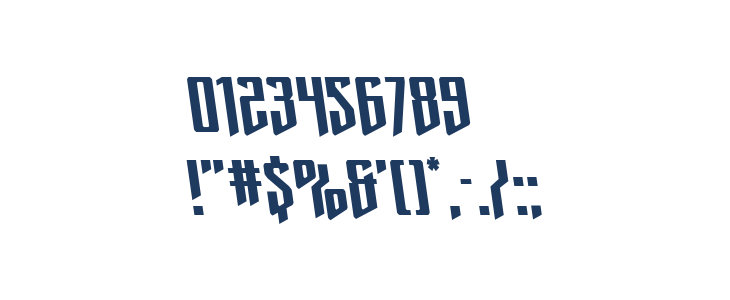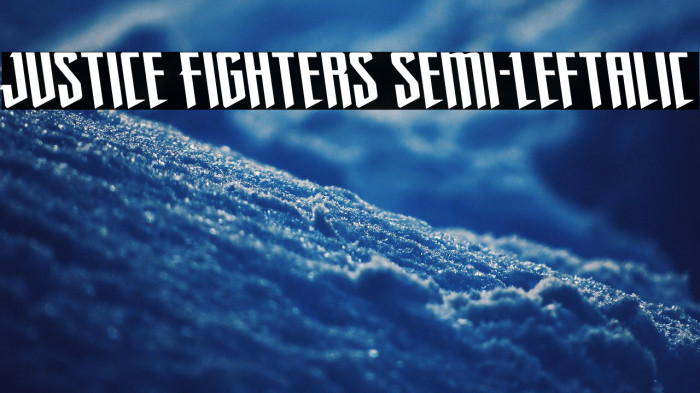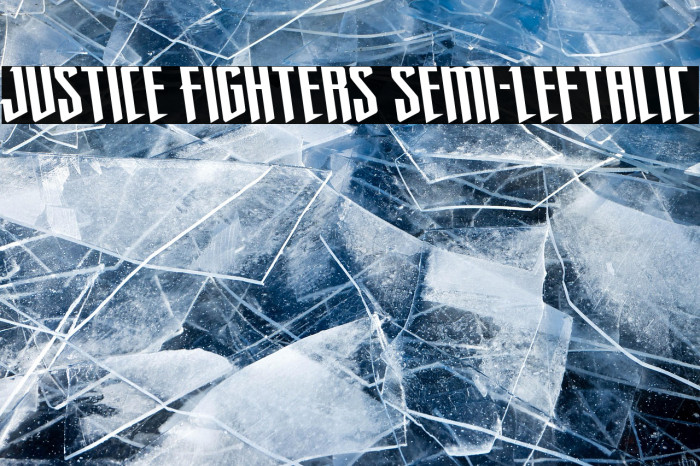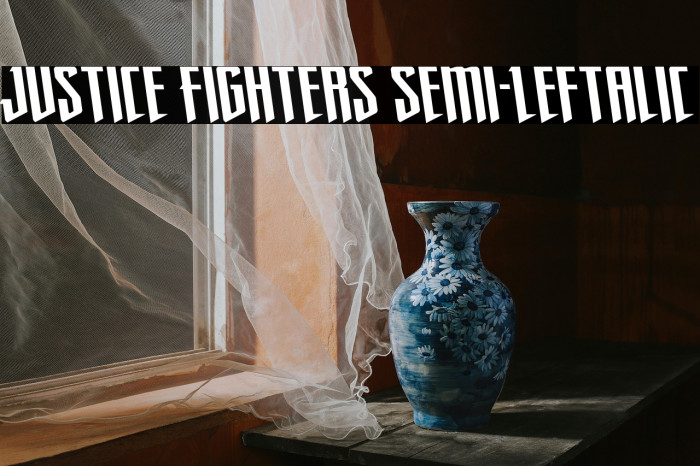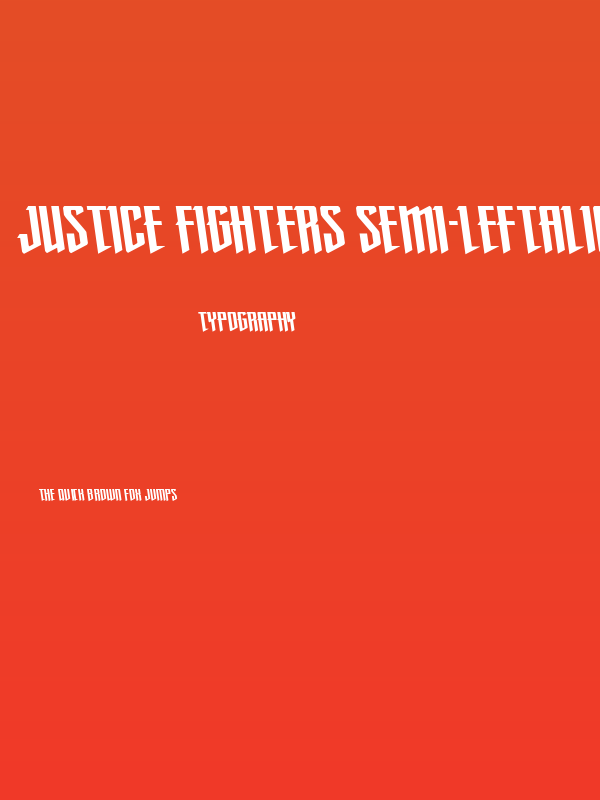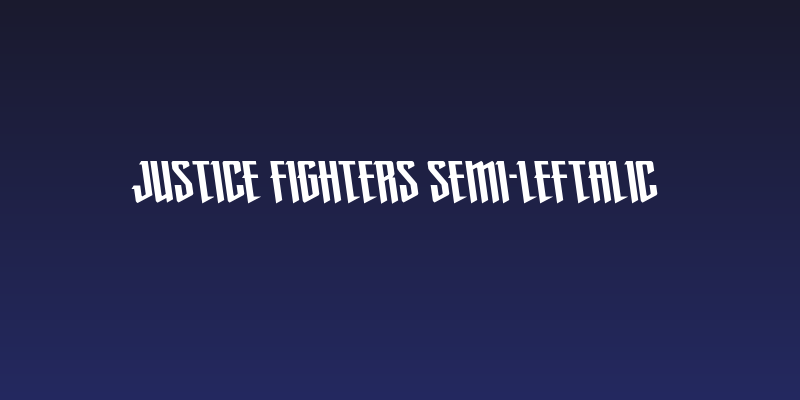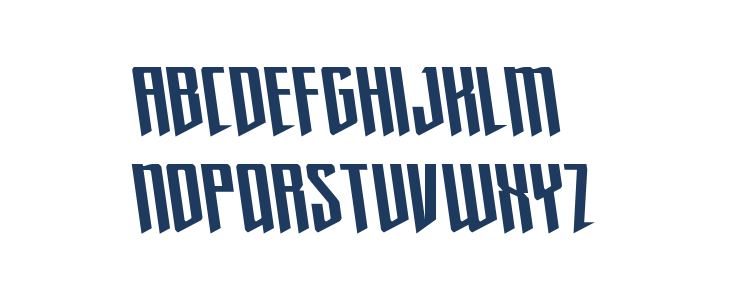
Justice Fighters Semi-Leftalic Font
Justice Fighters Semi-Leftalic Description
This font features a bold and dynamic style with a distinct slant to the left, giving it a sense of motion and energy. The characters are sharply angular, with strong vertical lines and pointed edges that convey a sense of strength and determination. The uppercase and lowercase letters maintain a consistent style, enhancing readability while preserving the font's unique character. The numbers and special characters are designed to match the overall aesthetic, making them suitable for a variety of uses. The font's boldness and angularity make it ideal for attention-grabbing headlines and impactful designs.
Proposed ProjectsIdeal for comic book titles, action movie posters, video game graphics, and branding that requires a strong, energetic presence.